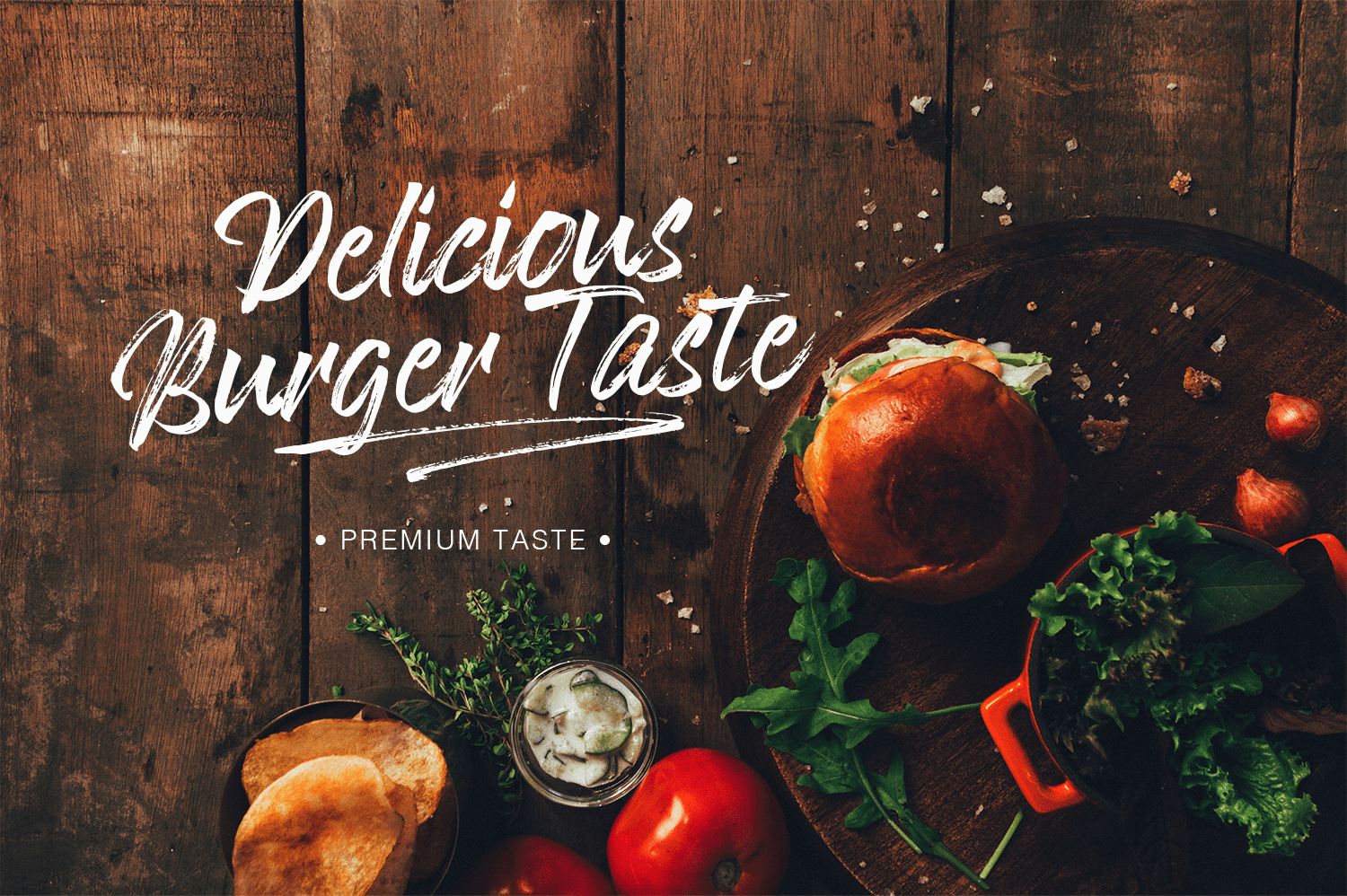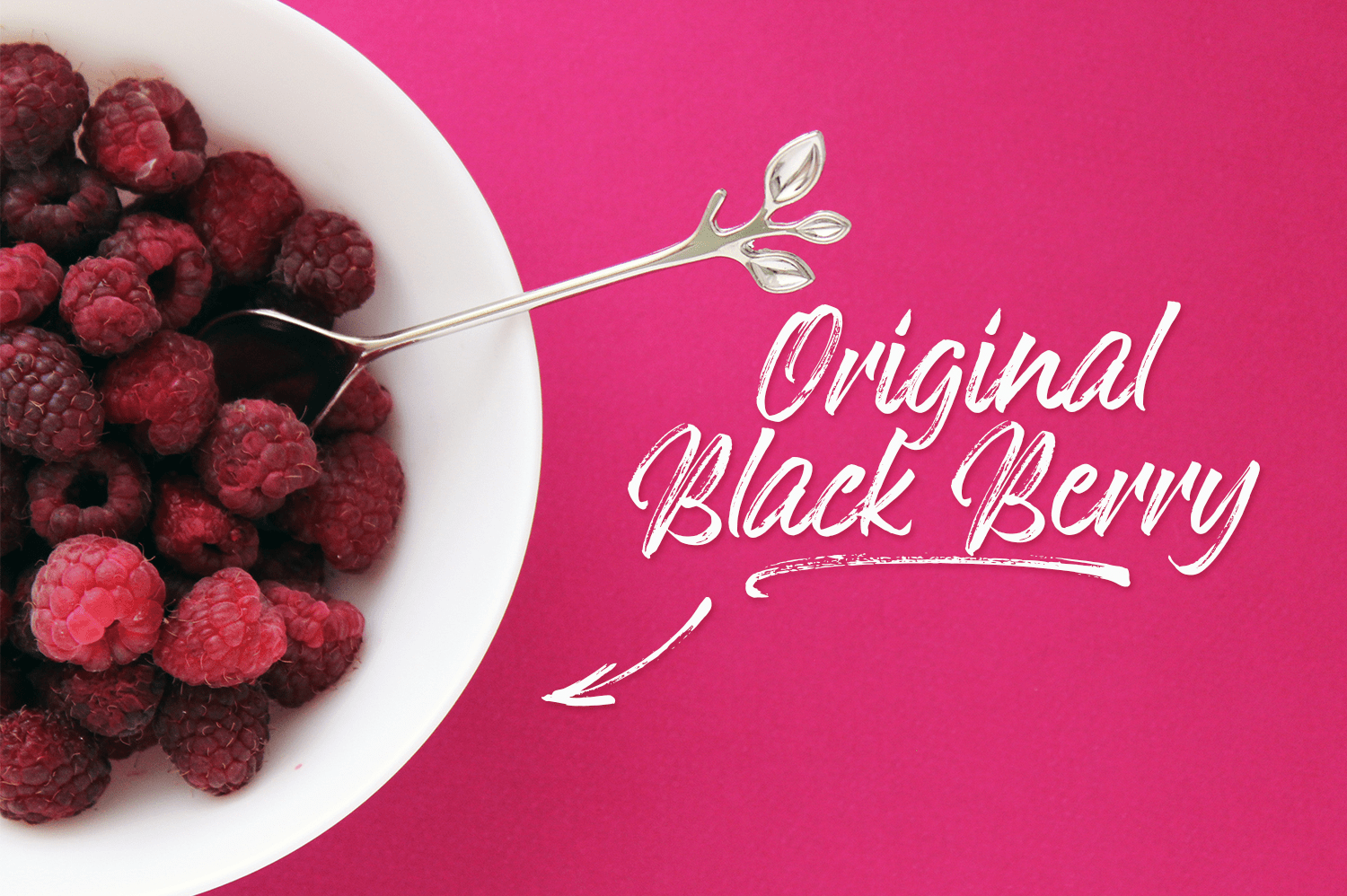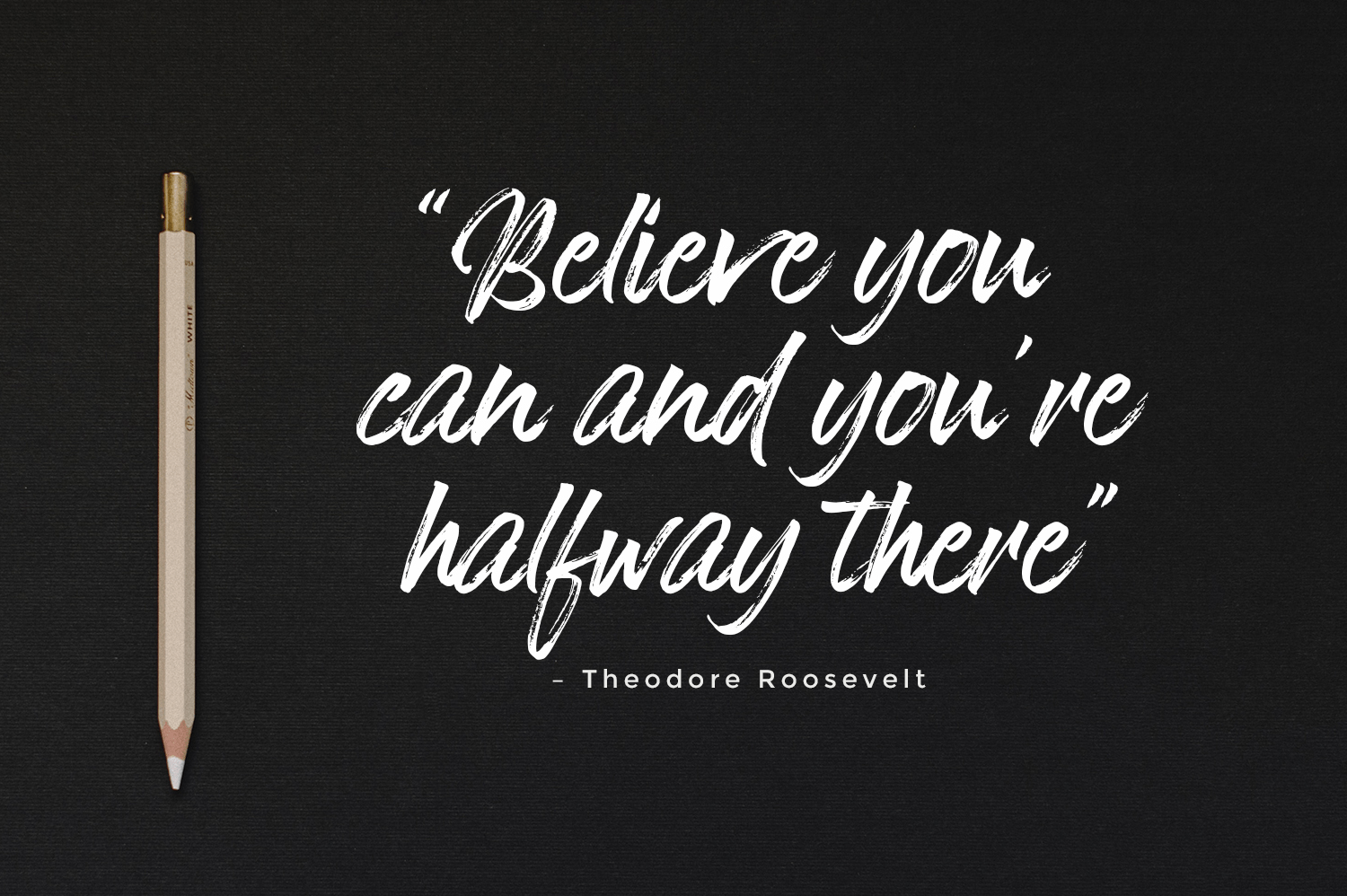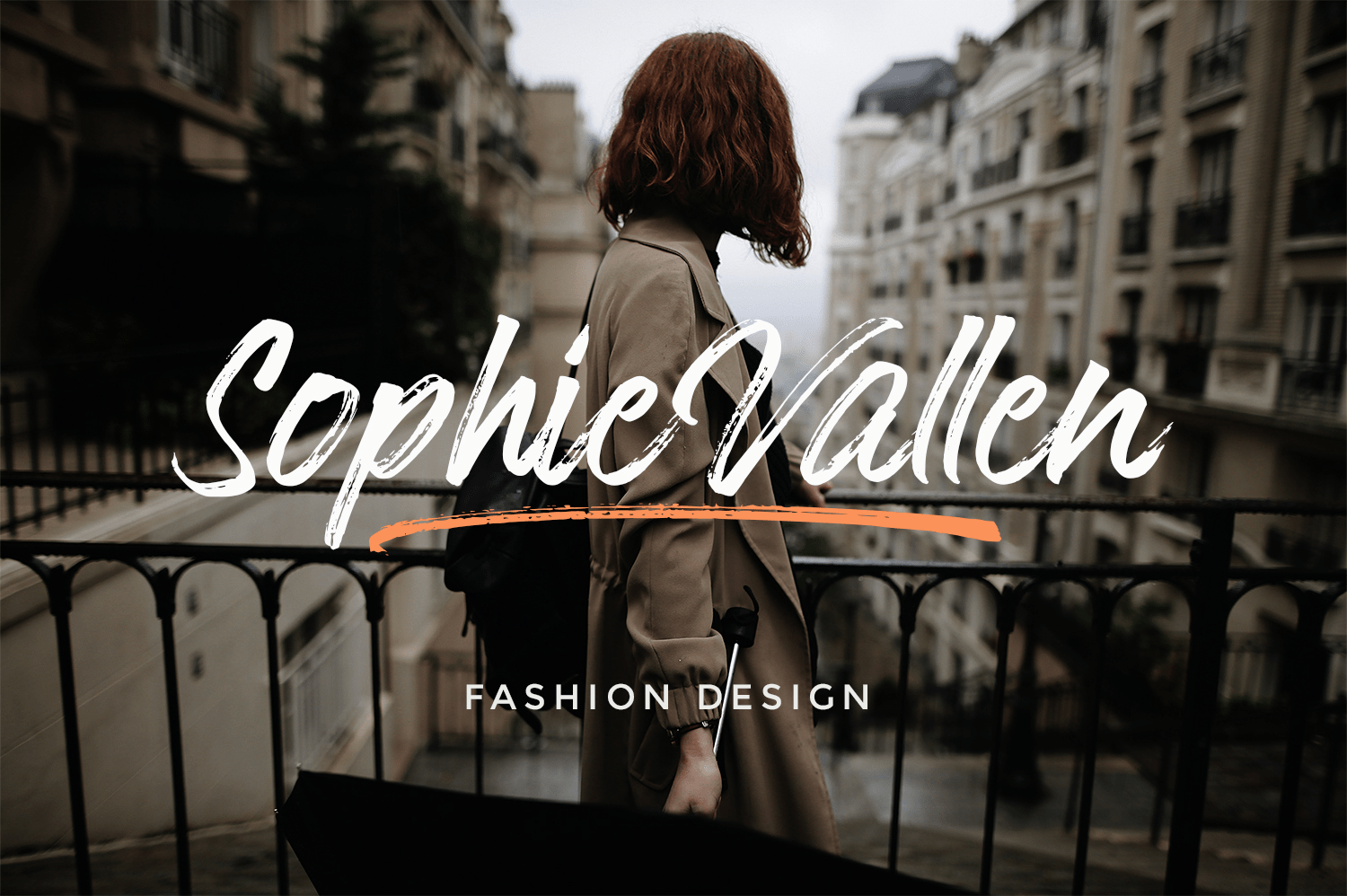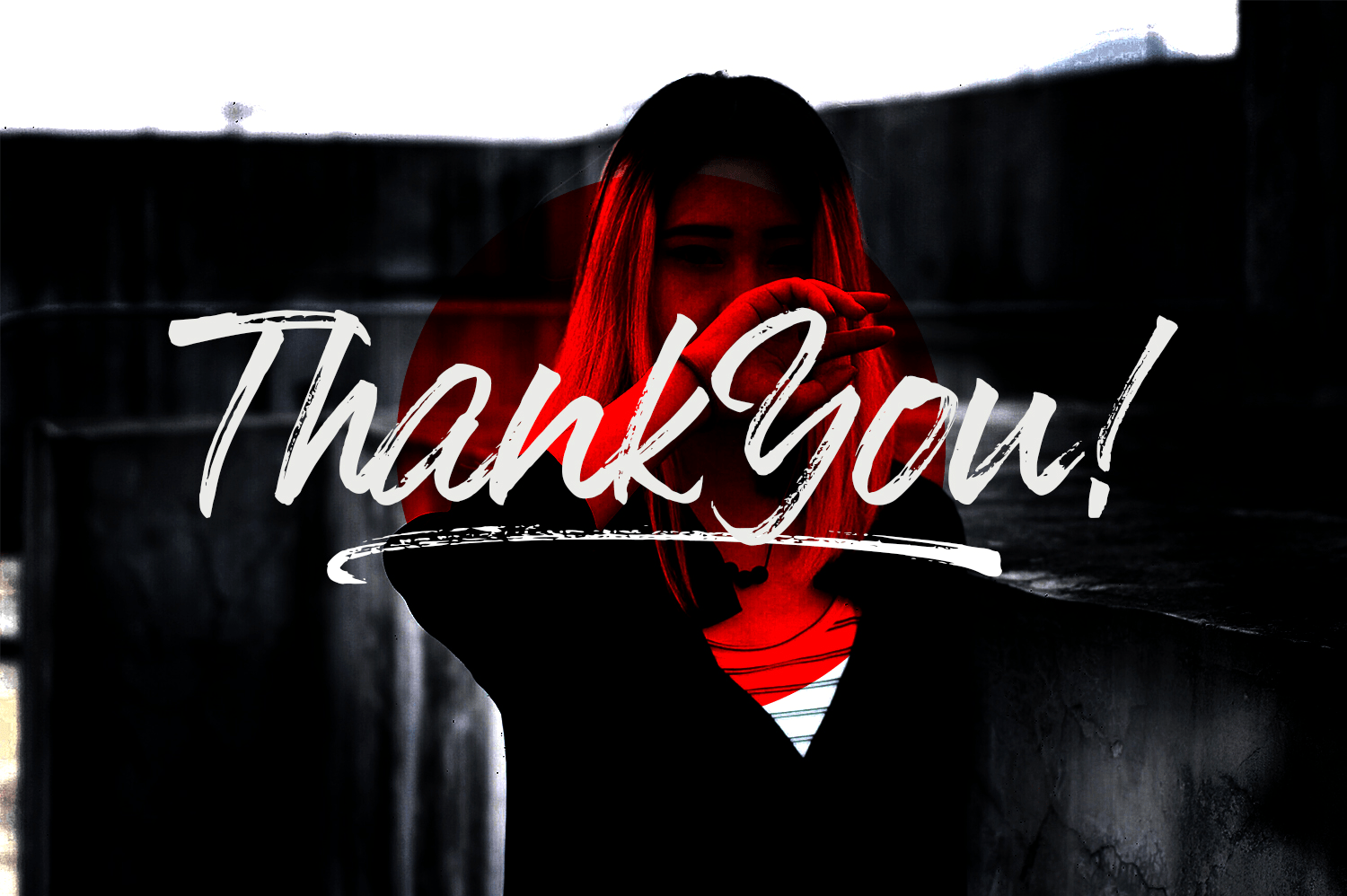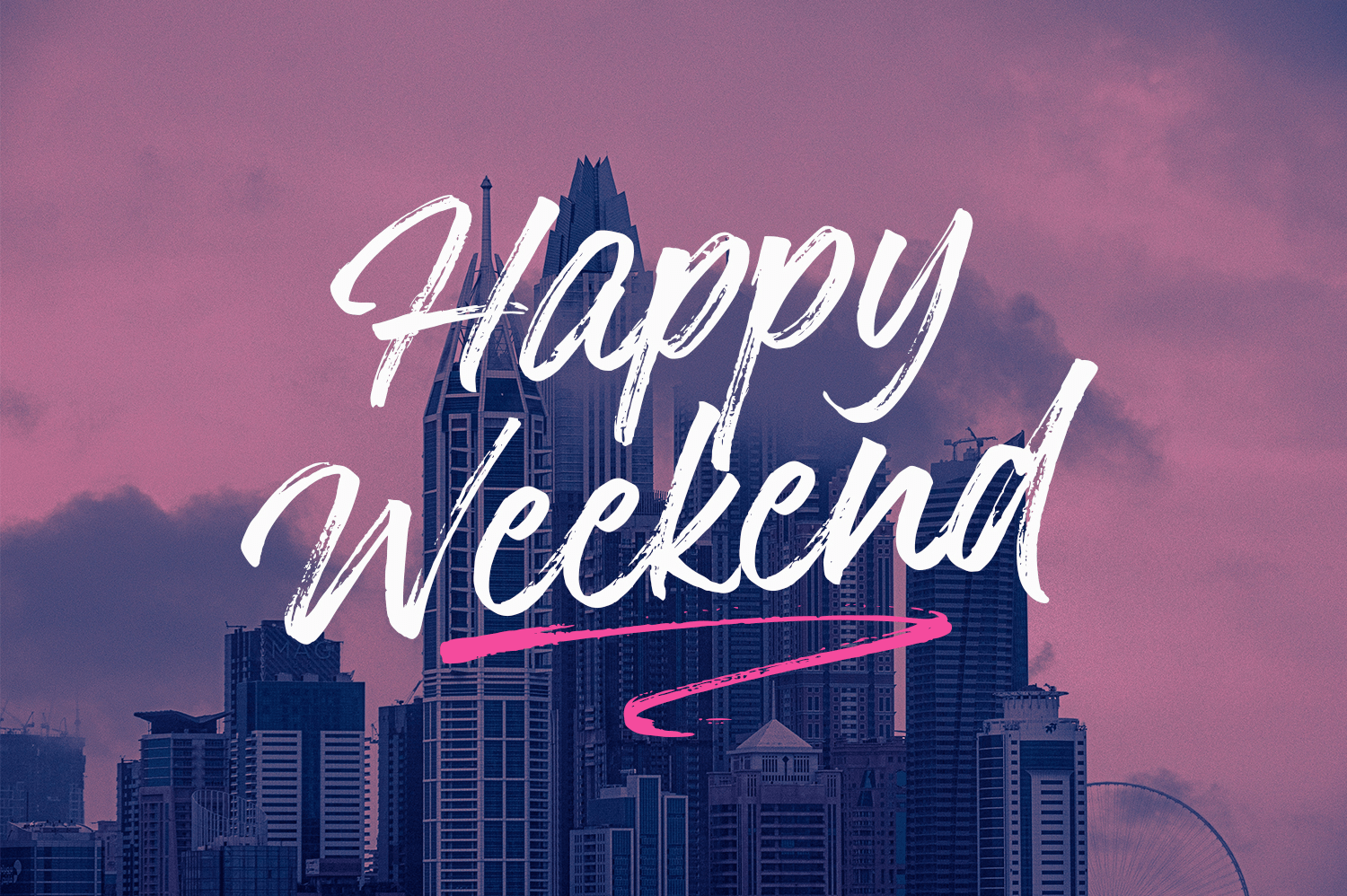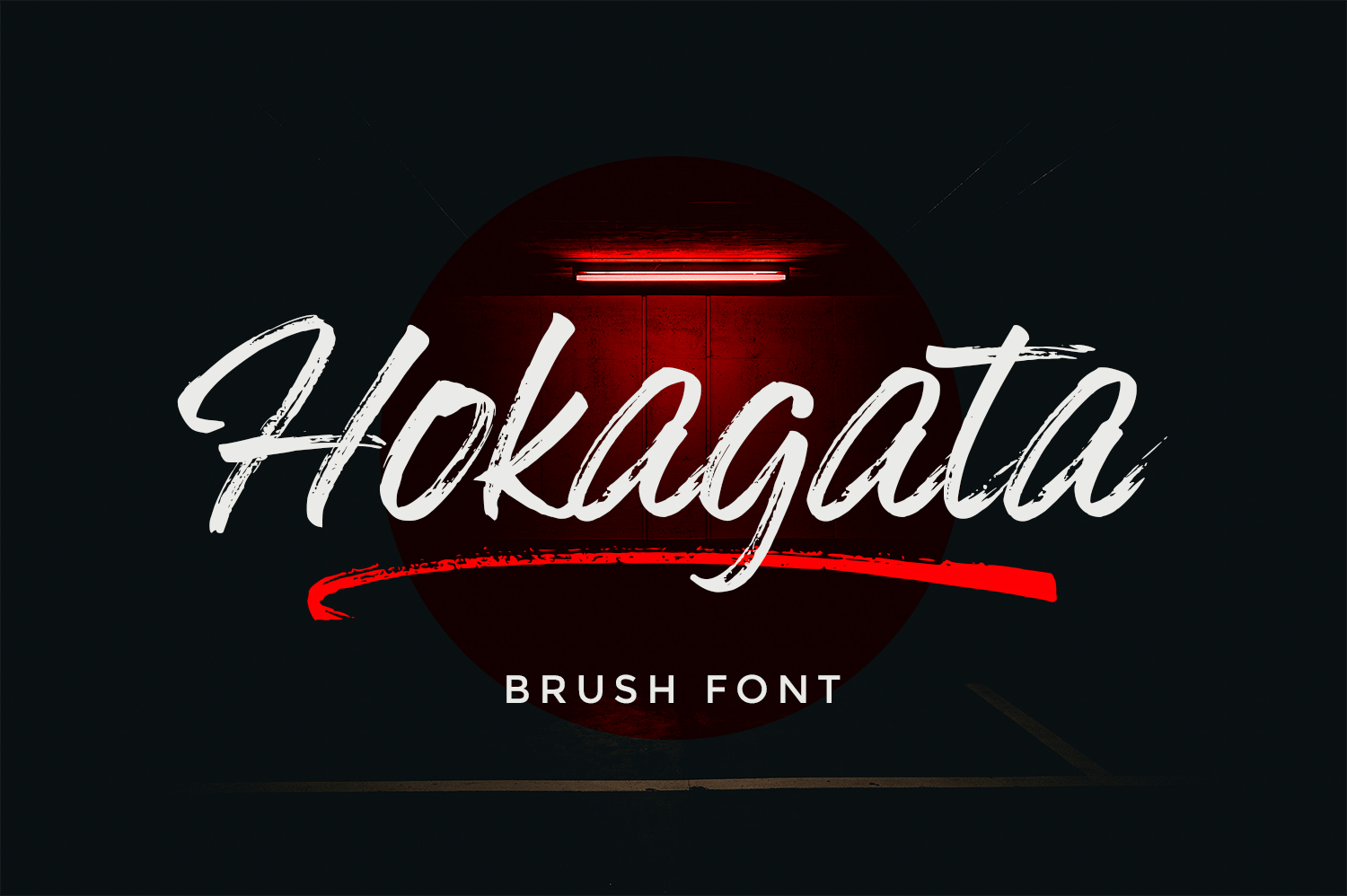
Hokagata Brush
About Hokagata Brush
Hokagata is a casually and quickly written brush script. Letters are made with brush pen on a paper. Then scanned and carefully drawn into vector format. There is just a right amount of texture left so it looks good in small and big sizes. These elements…